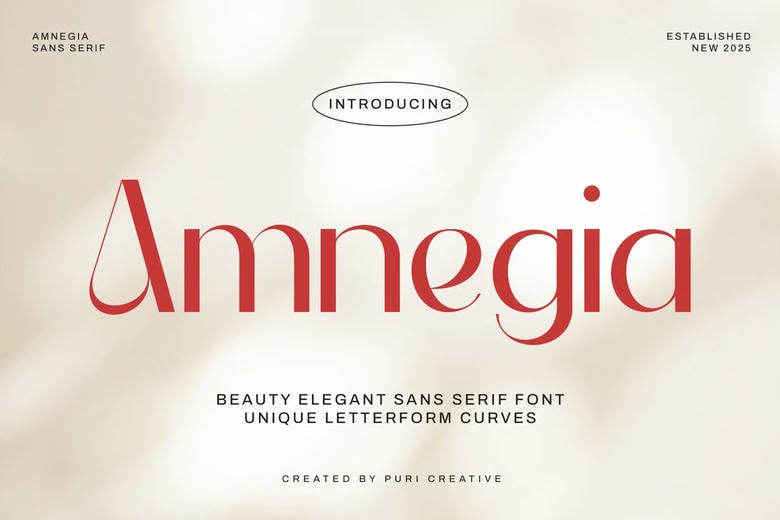
Amnegia is a Sans Serif font with luxury, elegant, modern, unique and classy-look, ready to use on Magazine, Social Media, Branding, Logo, and Many more that needs Luxury touches. Amnegia come with clean lines and smooth curves give any project an extra touch of class.
Amnegia Sans Serif Font